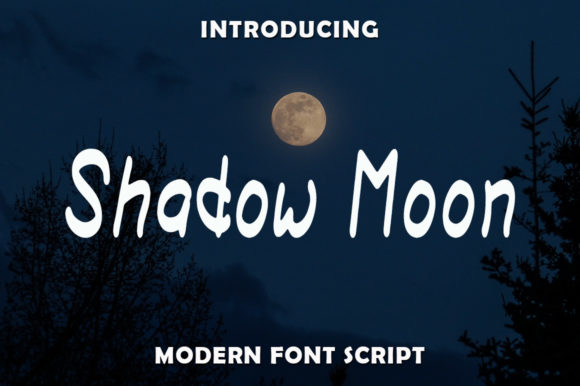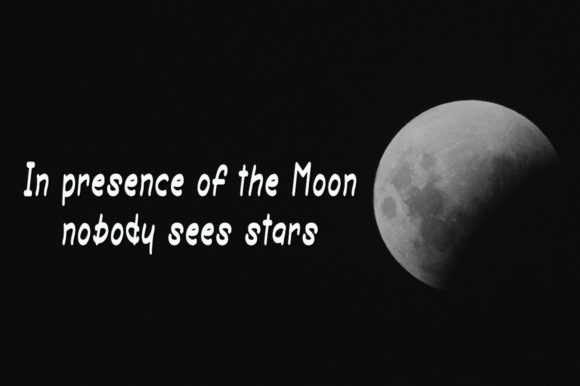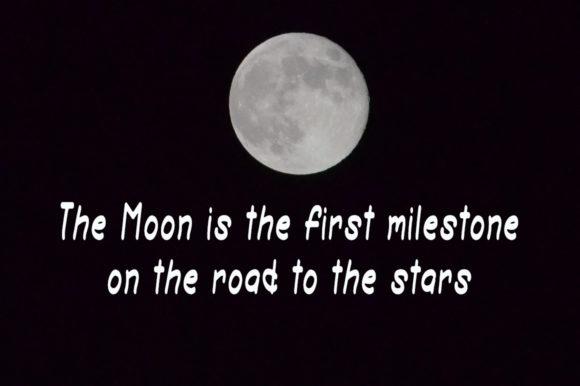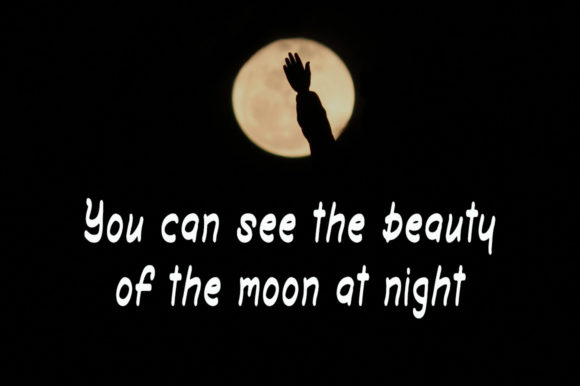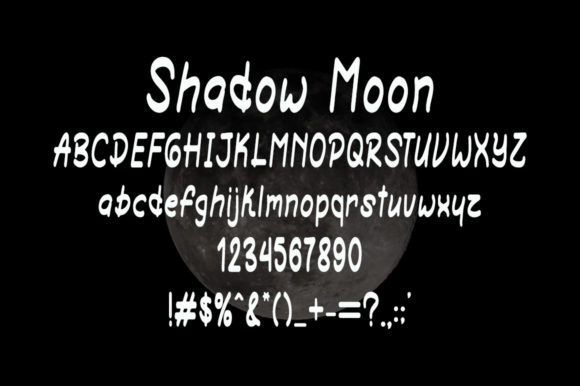
Shadow Moon Font
About Shadow Moon Font
Shadow Moon is a relaxed handwritten font. Get creative with its modern look and create great logos, cute stationery, eye-catching social media posts and more!